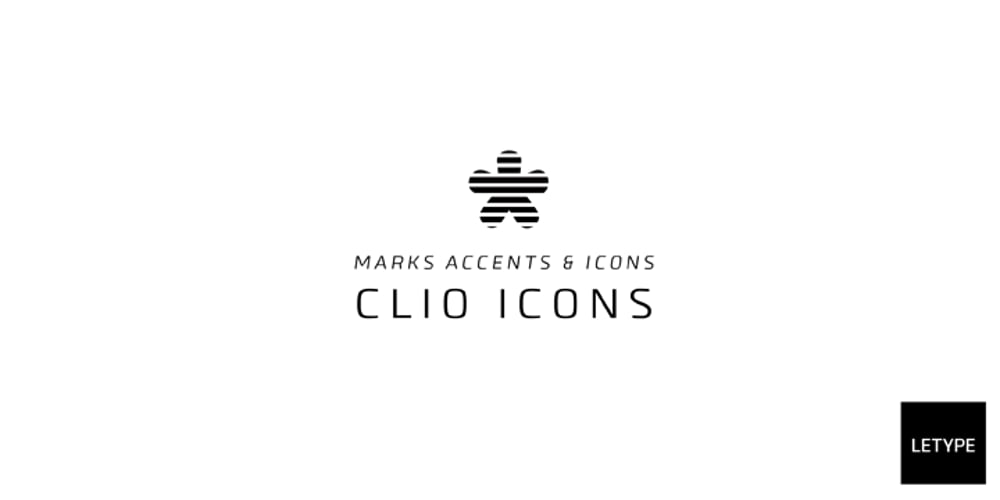
Clio Icons Font Family was designed by published by LeType. Clio Icons contains 1 styles and family package options. Clio Icons is designed to give more elegance to your project, the font has 88 icons that can be connected to one another forming marks and backgrounds in an unique and stylish way. The quotation marks were inspired by the famous quotation marks from Computer Arts Brazil magazine.